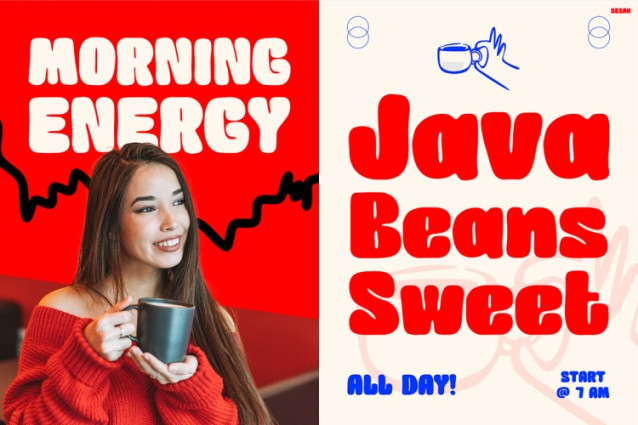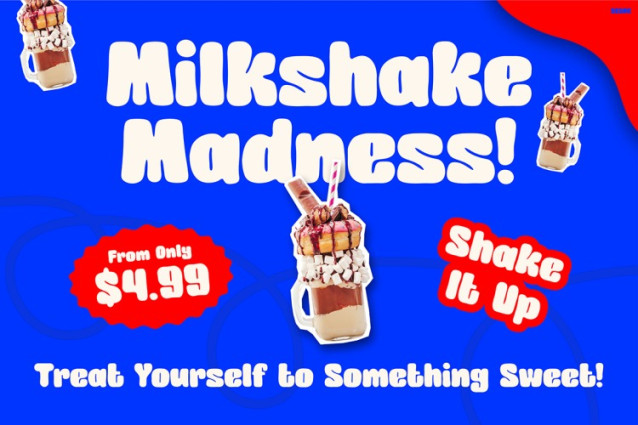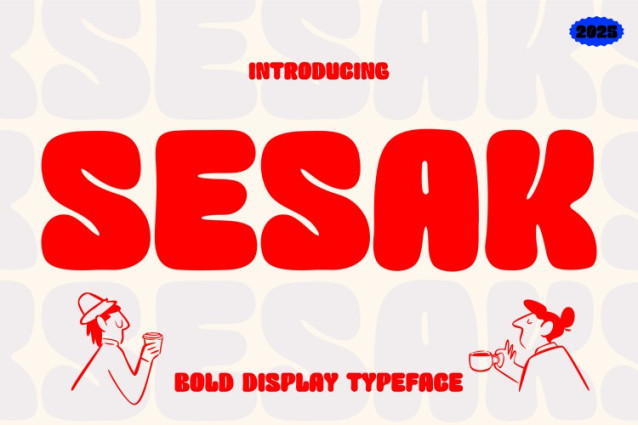
Sesak Font
Sesak Font is a lively and expressive typeface designed to bring bold character and joyful energy into every design. From its chunky curves to its smooth, friendly outlines, this font instantly creates a playful atmosphere that feels warm and inviting. Moreover, its bouncy shapes and confident weight make every word feel more engaging, which naturally draws attention in both digital and printed layouts. Because of its unique charm, SESAK becomes a perfect choice for creatives who want a typeface that feels youthful, energetic, and visually delightful. Furthermore, the strong readability ensures your message remains clear, even in fast-paced or colorful compositions. Therefore, the combination of bold aesthetics and flexible usability makes this font not just attractive, but also highly functional.
SESAK offers a bright and cheerful personality that elevates your visual storytelling. Additionally, its thick strokes and soft, rounded letterforms help your designs stand out, especially when paired with vibrant backgrounds or expressive illustrations. The font feels modern yet nostalgic, giving you a retro-inspired look that still feels fresh. Consequently, it becomes ideal for menus, product advertisements, café promotions, children’s visuals, and fun branding concepts.
Moreover, the letters flow harmoniously, which creates a consistent rhythm from A to Z. Meanwhile, the expressive style allows you to capture emotions—sweetness, excitement, creativity, comfort, or fun—with minimal effort. Because SESAK works beautifully in both large and small sizes, you can use it for posters, packaging, signage, and digital graphics without losing clarity. Additionally, its friendly structure makes it a great pick for designers who want a font that balances personality with simplicity.